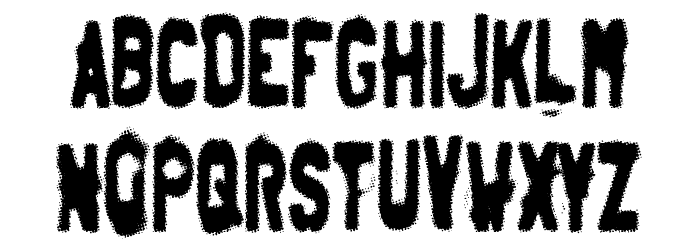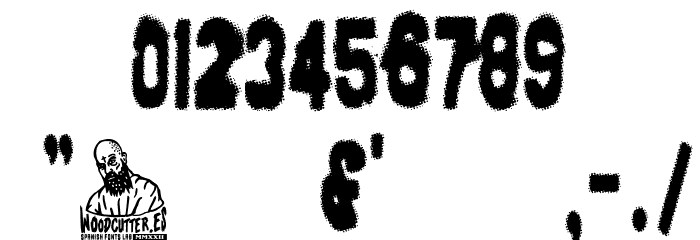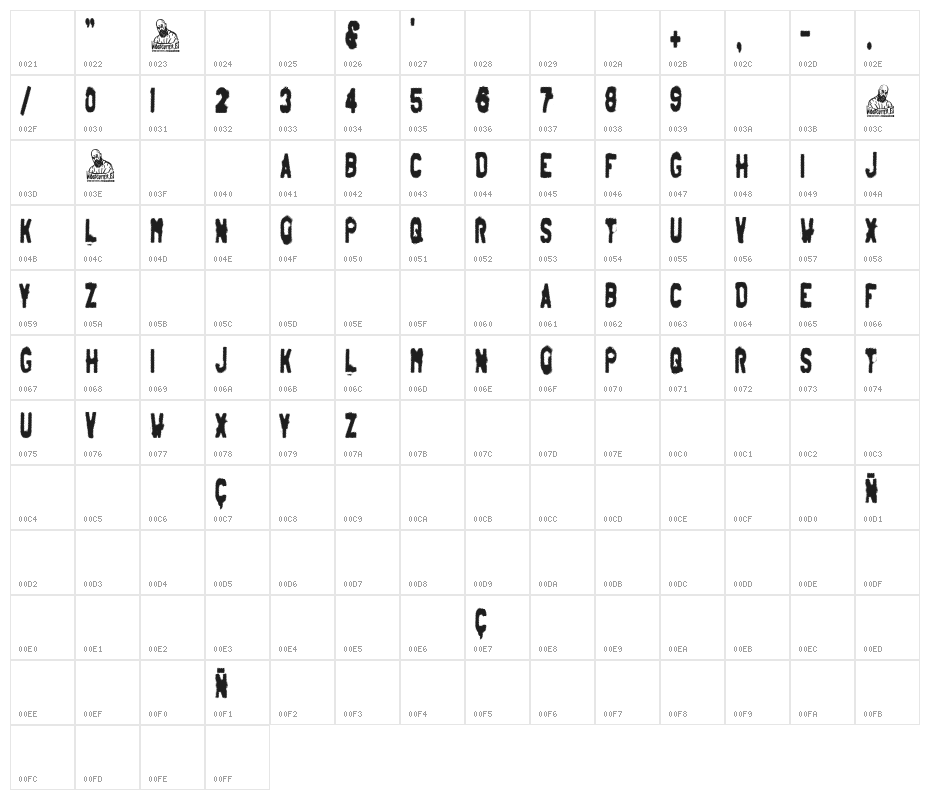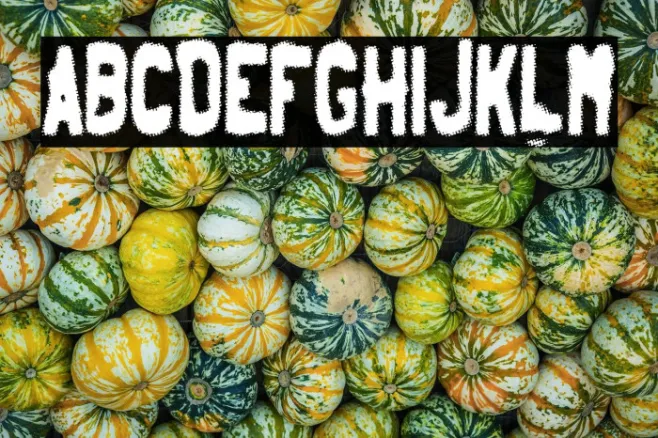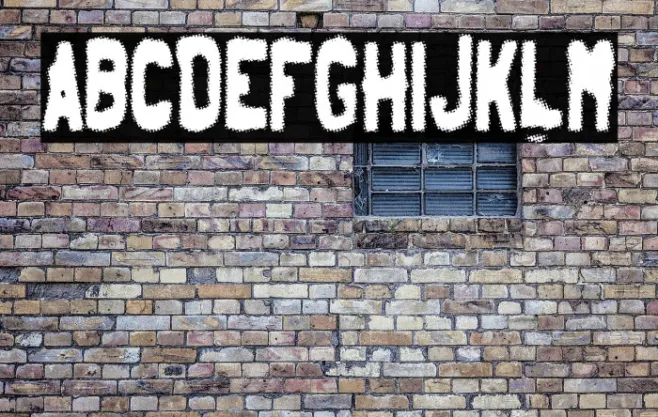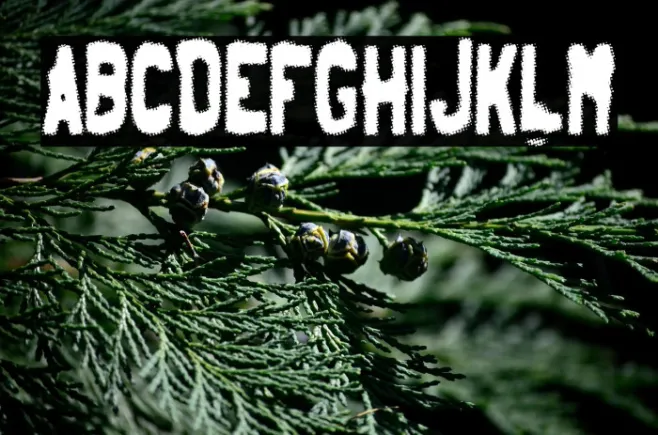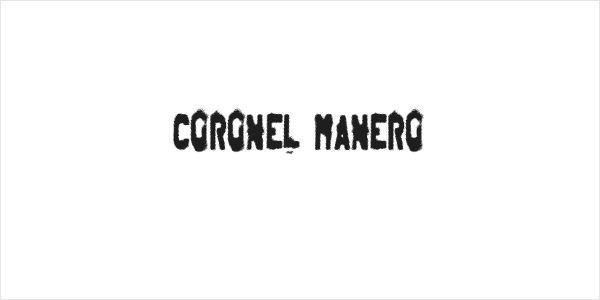
Coronel Manero Font
This font features a bold and rugged design with a textured, distressed appearance that gives it a unique, vintage feel. The characters are thick and substantial, with a slightly uneven edge that adds to the hand-crafted look. The uppercase and lowercase letters maintain a consistent style, while the numerals and special characters complement the overall aesthetic. The font's boldness and texture make it stand out, suitable for projects that require a strong visual impact.
A bold, textured font with a vintage, distressed style.
- Font: Coronel Manero
- Proposed Projects: Ideal for posters, branding, album covers, and any project needing a bold, vintage look.
- Overall Style: Vintage